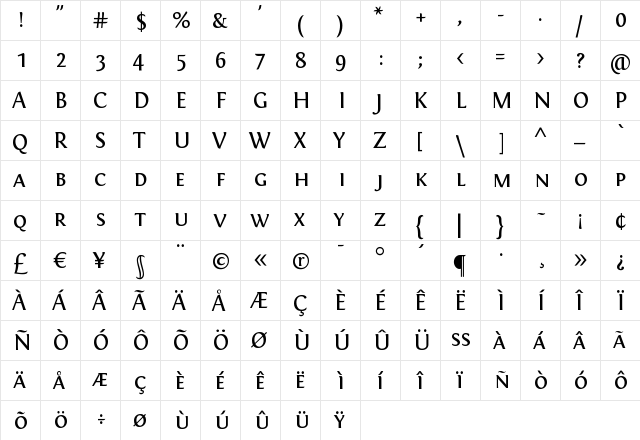
Fontin SmallCaps SmallCaps
Design Context for Fontin SmallCaps Typeface
Fontin SmallCaps offers clean, dependable letterforms without strong stylistic allegiance, making it a practical choice for designers who need flexibility.